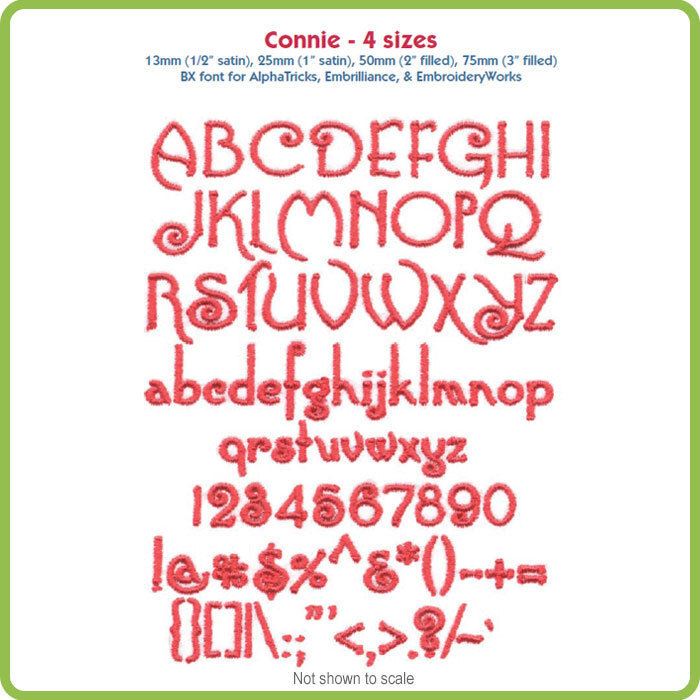
Connie Font - Various Sizes
Collection Notes: Connie is a decorative curly serif machine embroidery font that includes A-Z, a-z, 0-9 and the following punctuation: ~`!@#$%^&*()-+={}[]|:;"'<>,.?/ (93 total characters). This bundle includes the following sizes: 13mm satin, 25mm (1") satin, 50mm (2") fill, 75mm (3") fill.